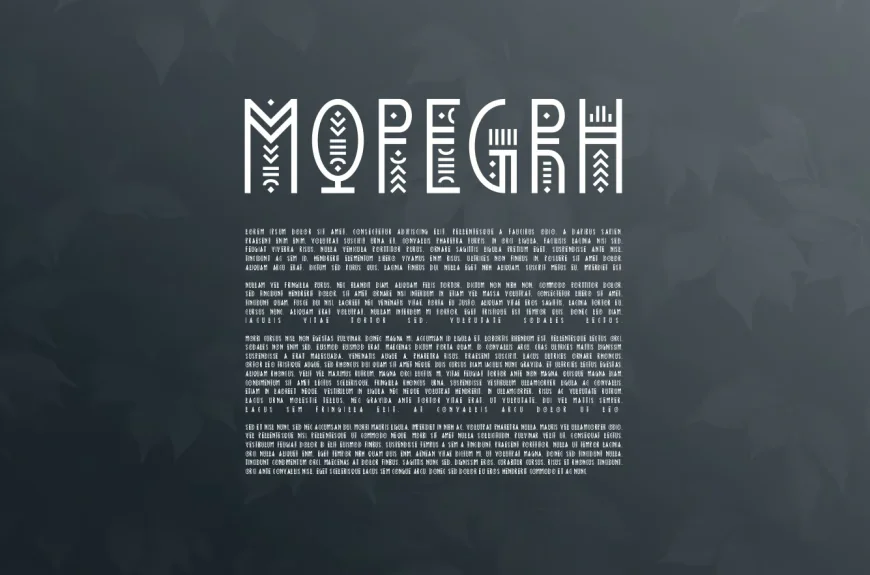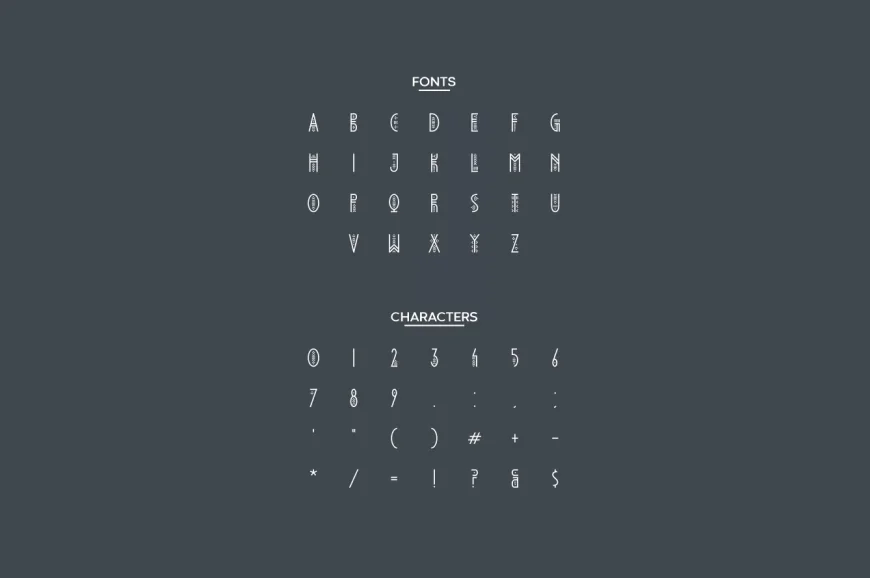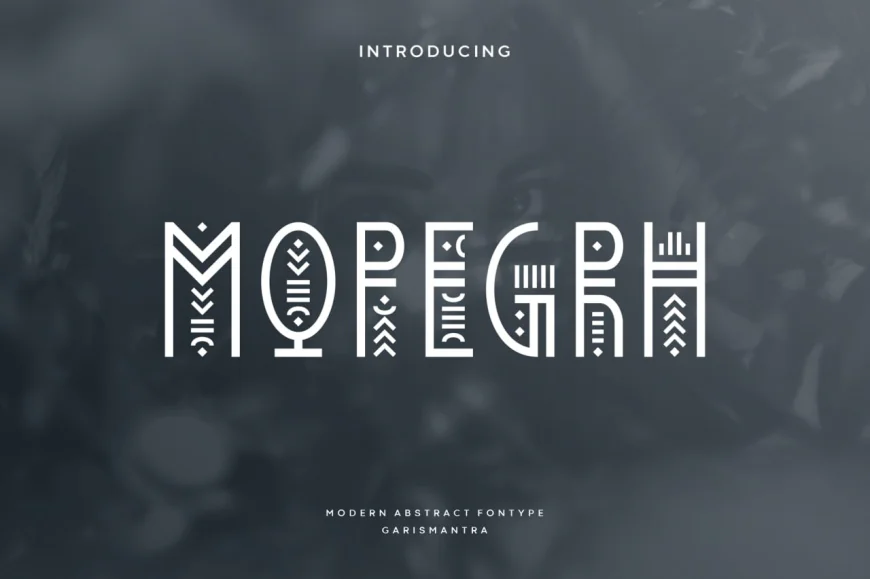
Its original look will appeal to a wide range of creative ideas, from headers and titles to stationery. Have fun with Mqpegrh and explore its countless variations.
Mqpegrh is a linear and minimalist display font. Its original look will appeal to a wide range of creative ideas, from headers and titles to stationery. Have fun with Mqpegrh and explore its countless variations.